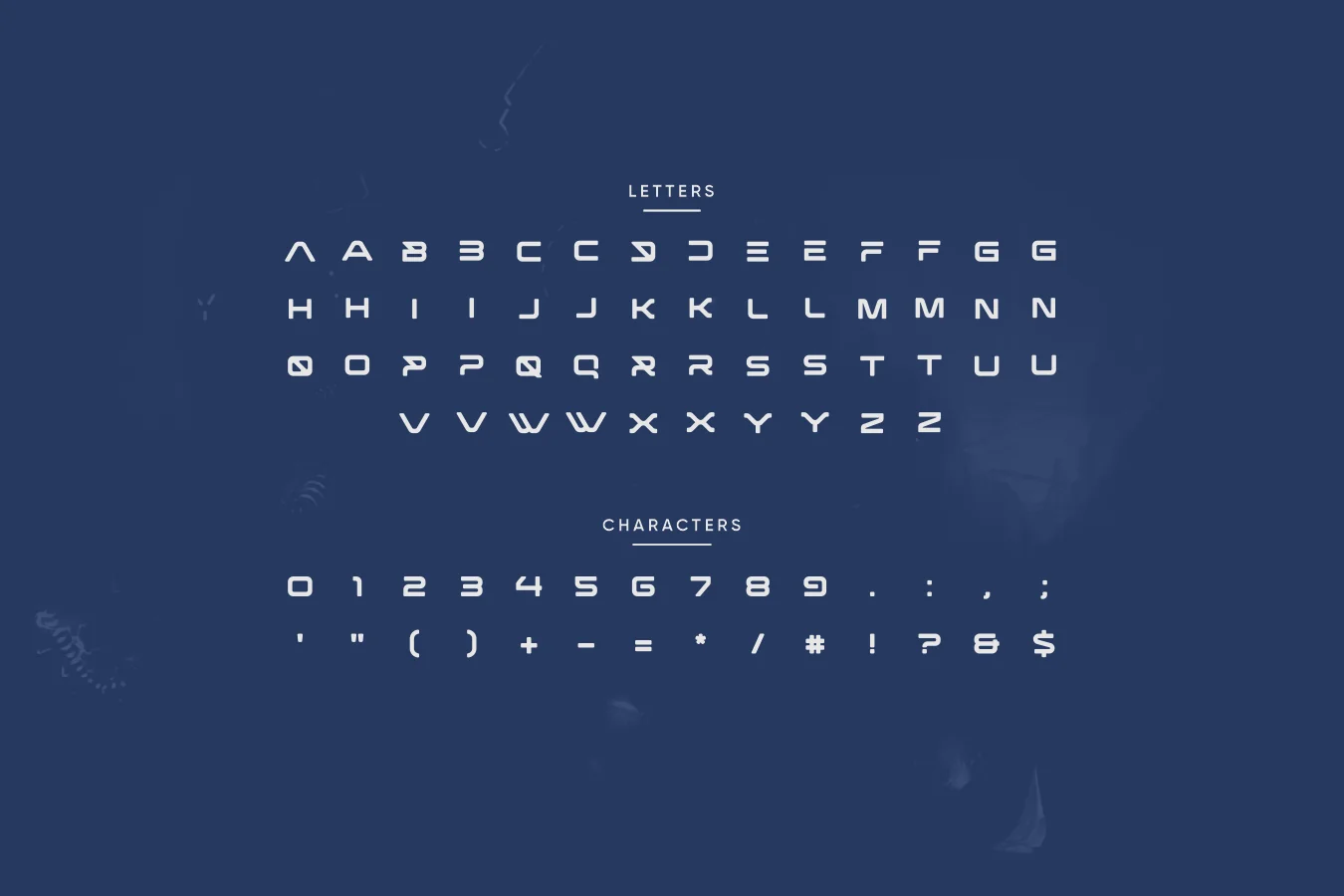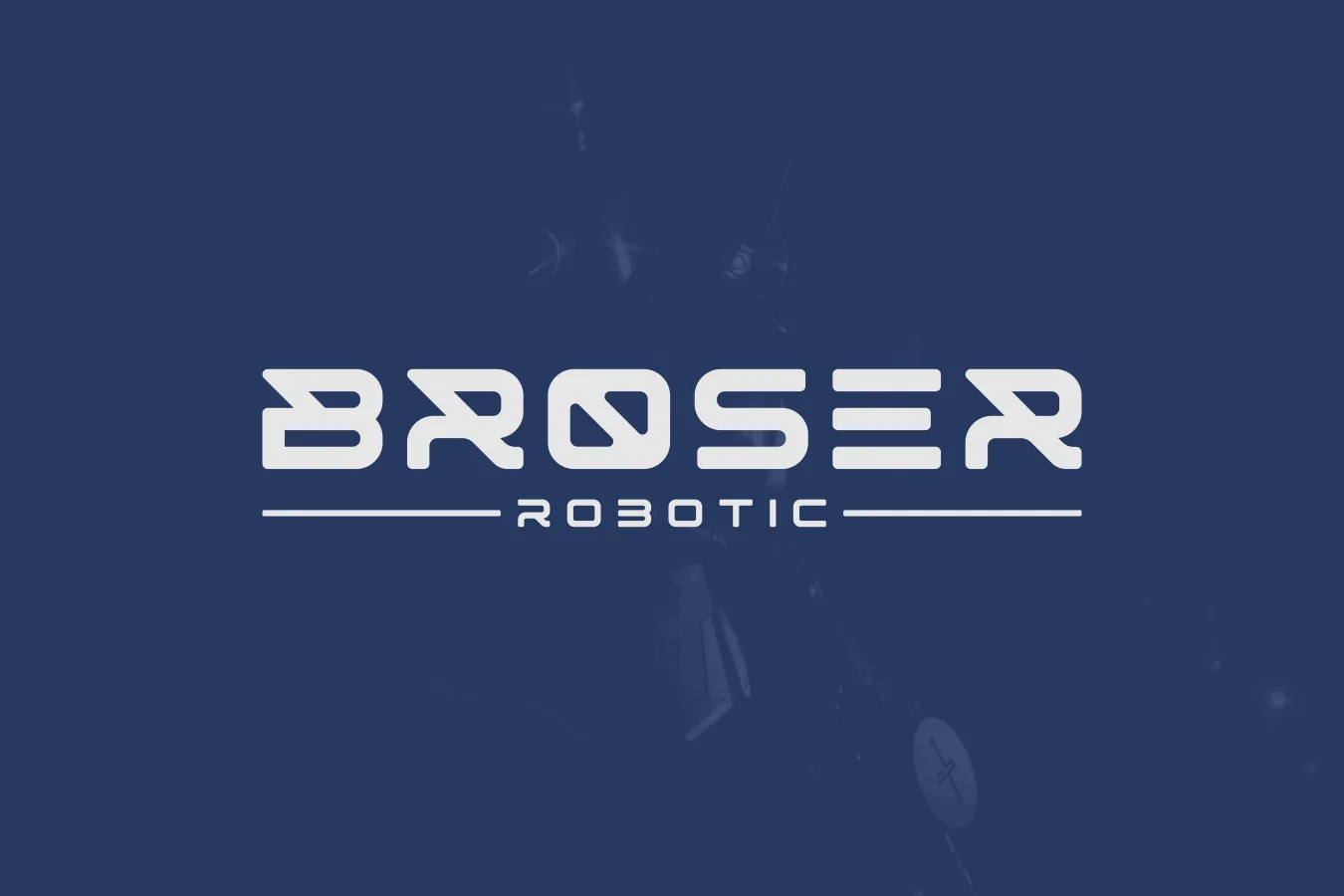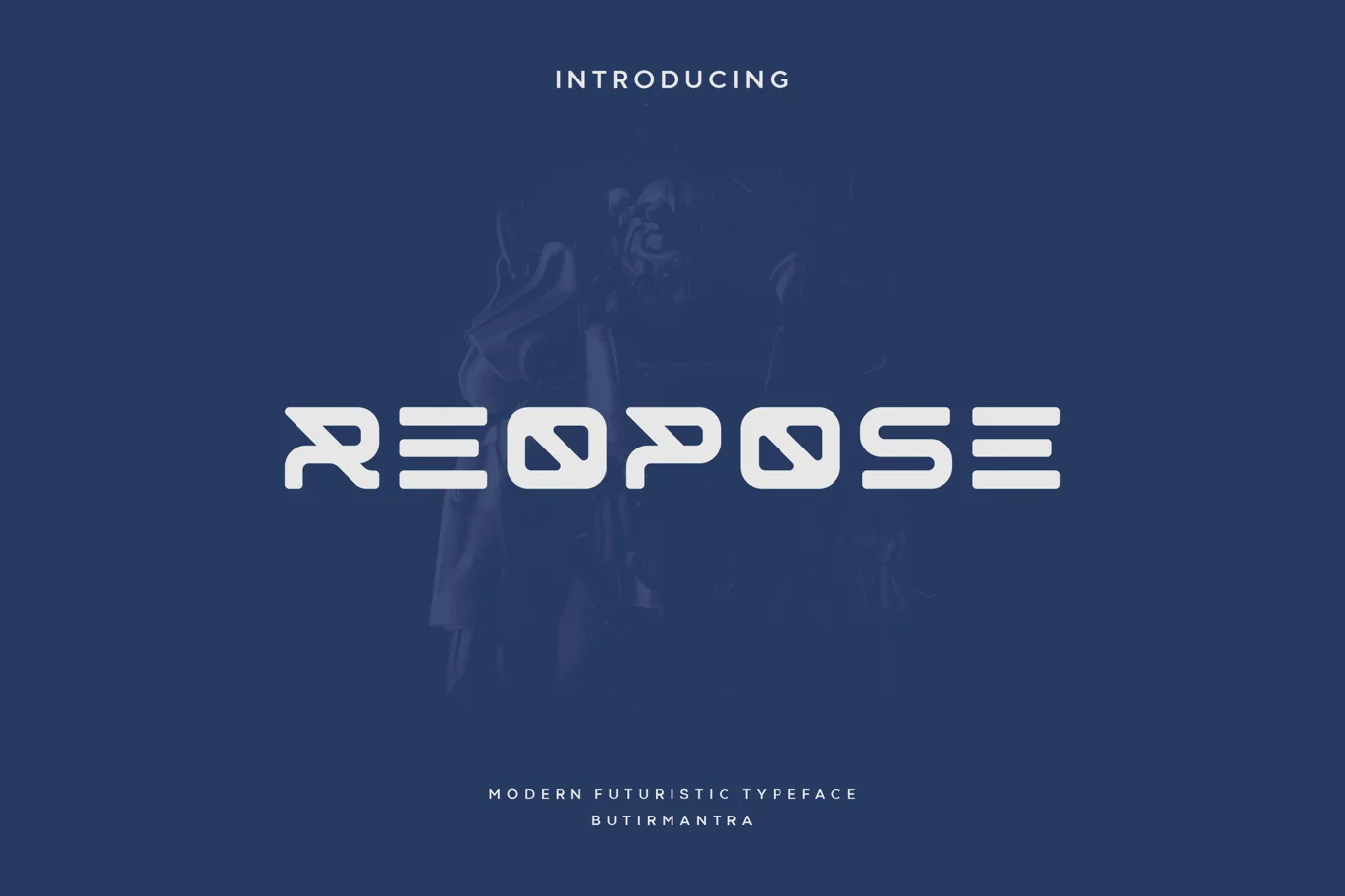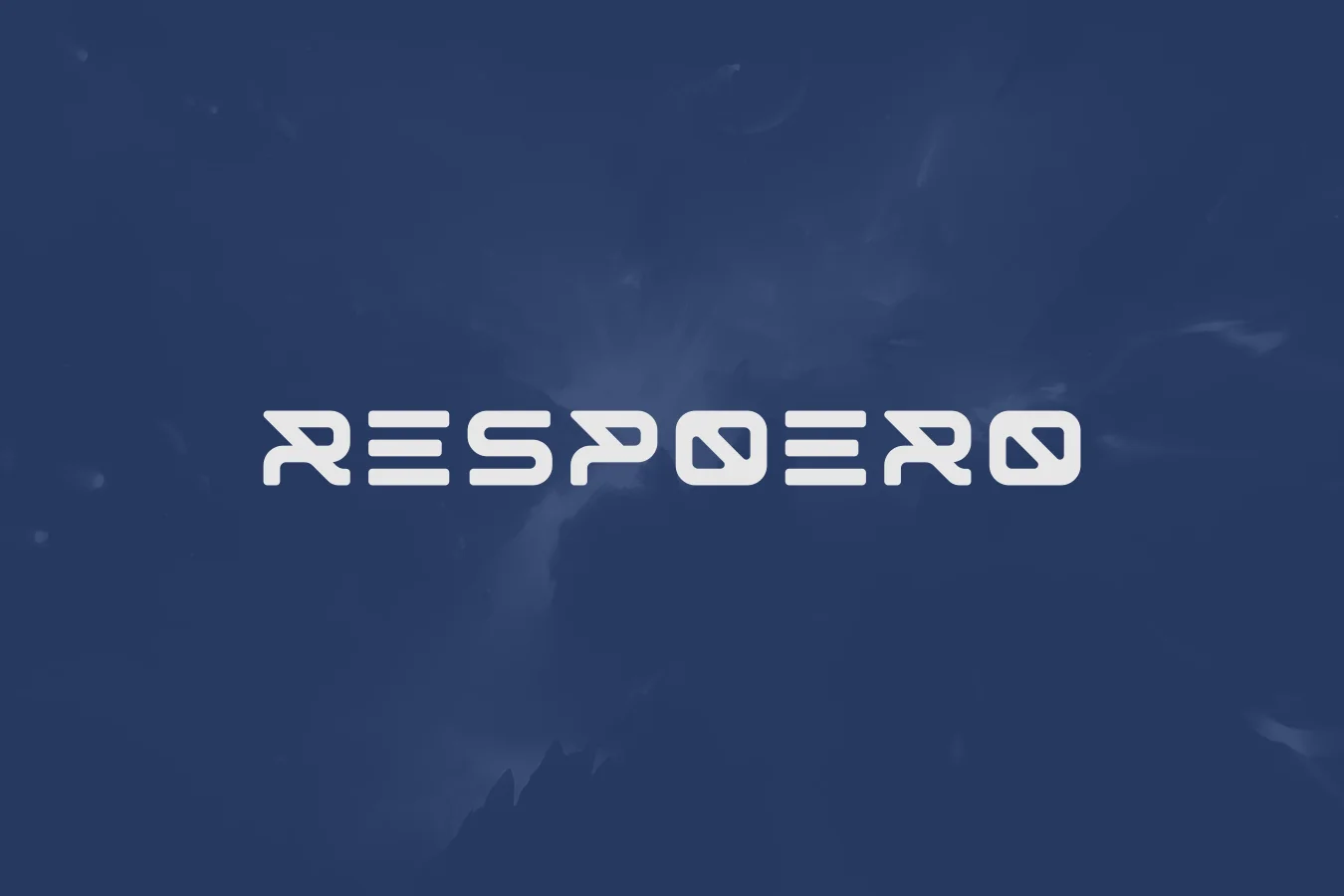
Reopose – Futuristic Font
Reopose is a futuristic font that we designed with an original touch for your needs. This cool font comes with all-caps, numeric & symbols. This powerful and sophisticated font is perfect for your logo, headline, typography, poster, magazine, brochure, packaging, websites and many more for your design needs, it will make your designs more cool and stand out.
- Punctuation & Number